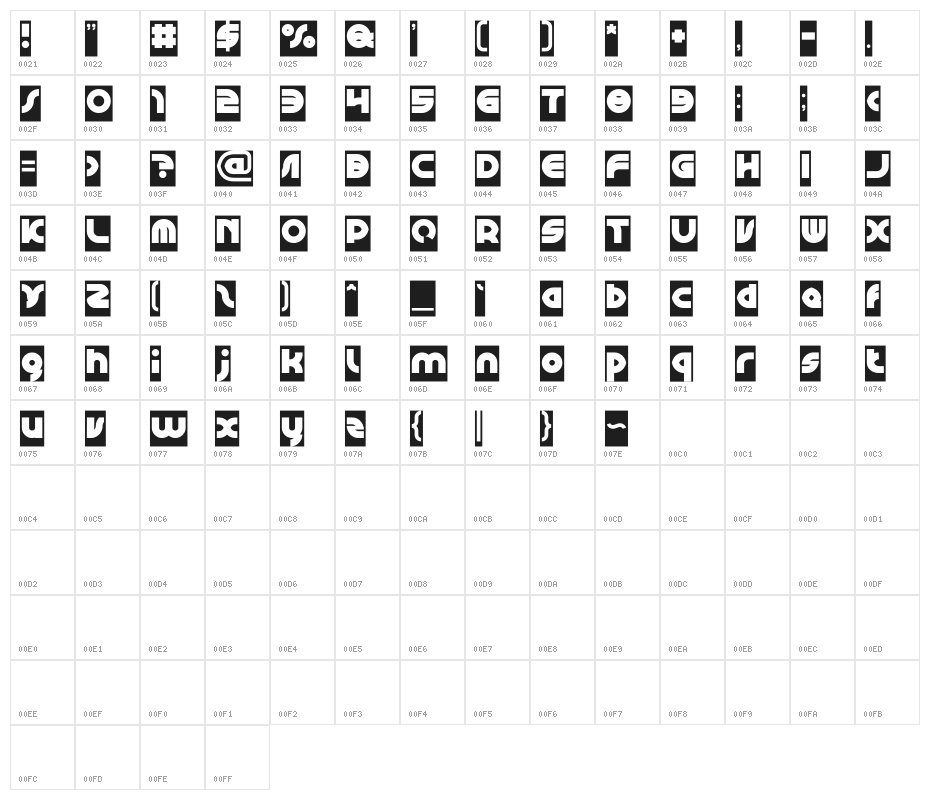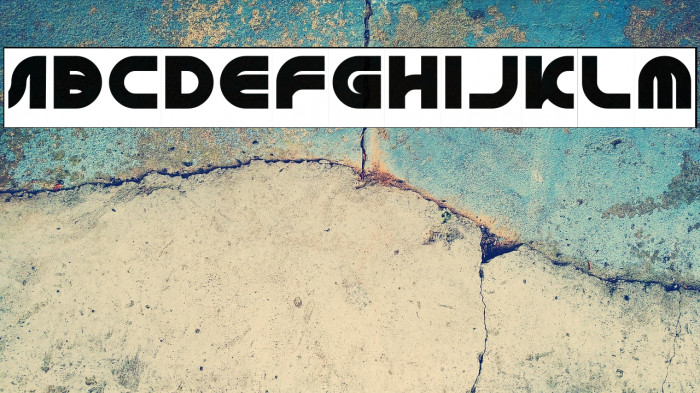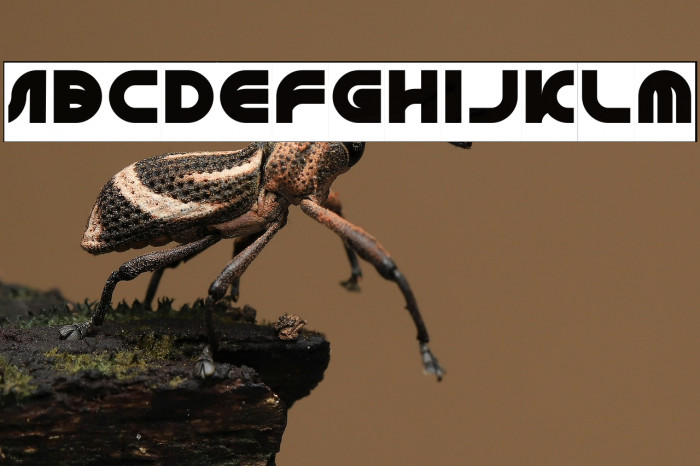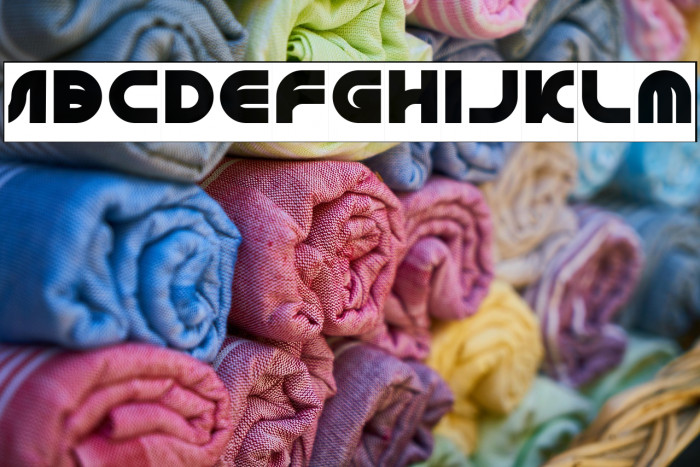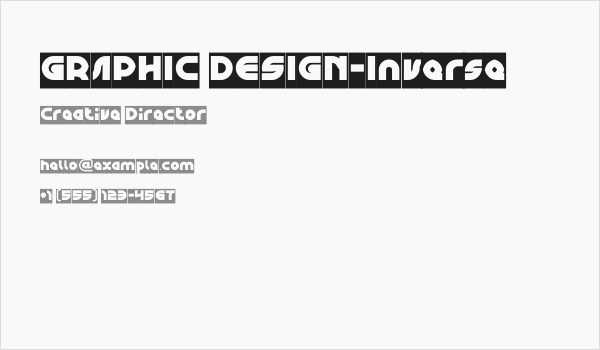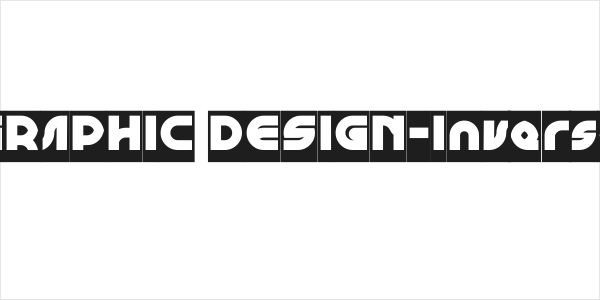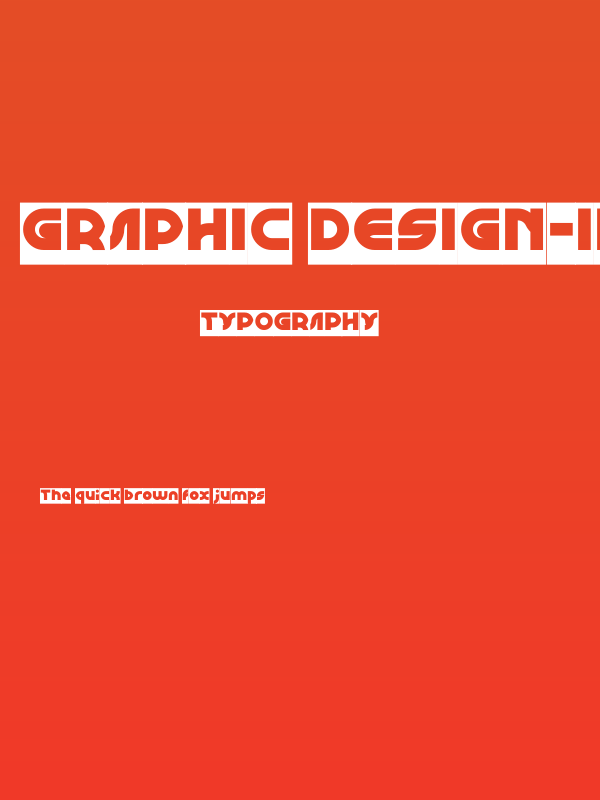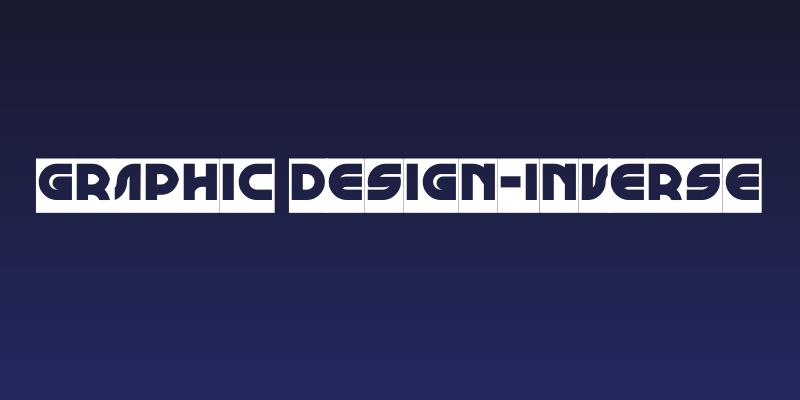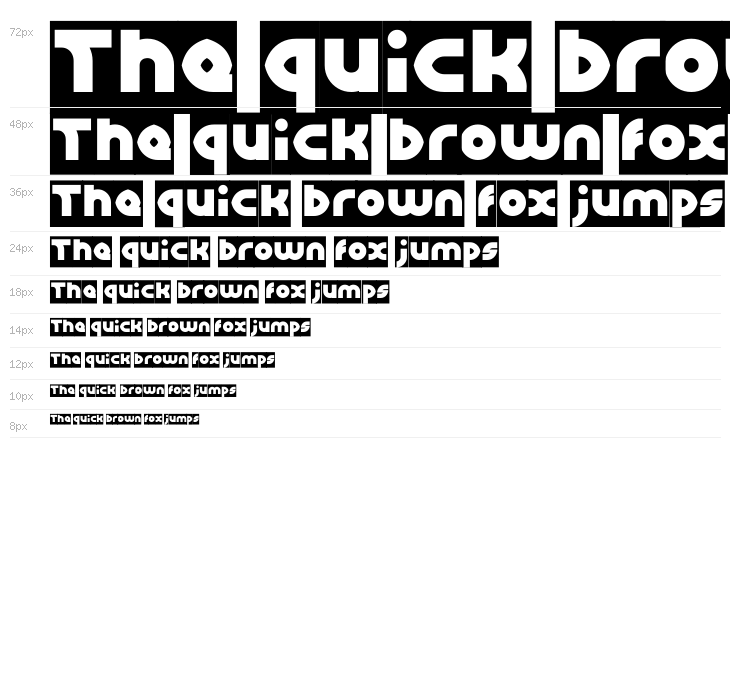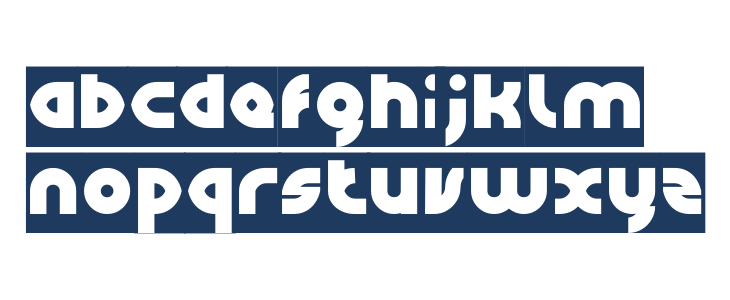
GRAPHIC DESIGN-Inverse Font
GRAPHIC DESIGN-Inverse Description
This font features a bold and futuristic design with a strong geometric influence. The characters are constructed with thick, uniform strokes that create a sense of solidity and modernity. The uppercase and lowercase letters maintain a consistent style, with rounded edges and a distinct block-like appearance. The numerals and special characters follow the same design principles, ensuring a cohesive look across all glyphs. The font's unique style makes it stand out, with a playful yet structured aesthetic that is both eye-catching and versatile.